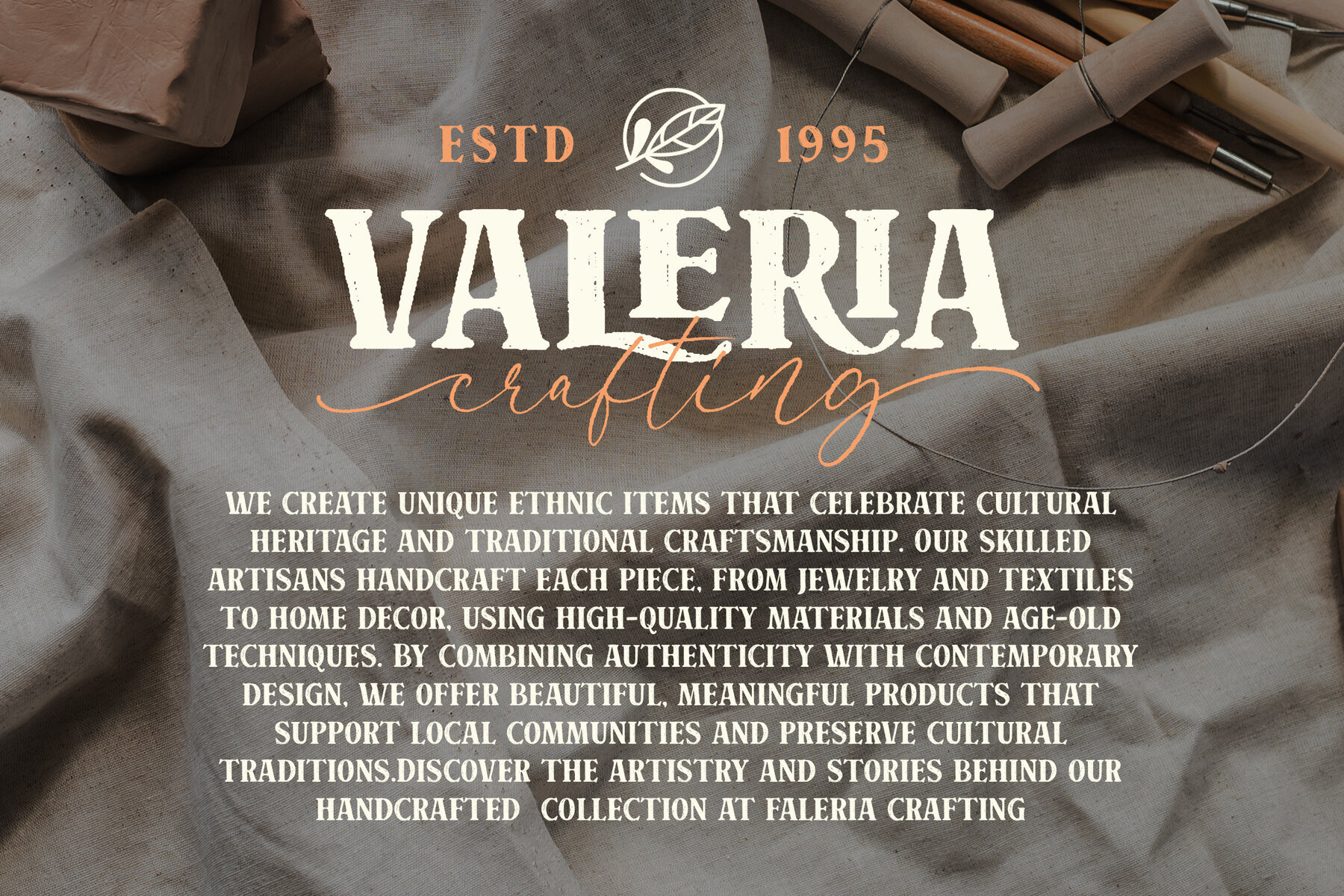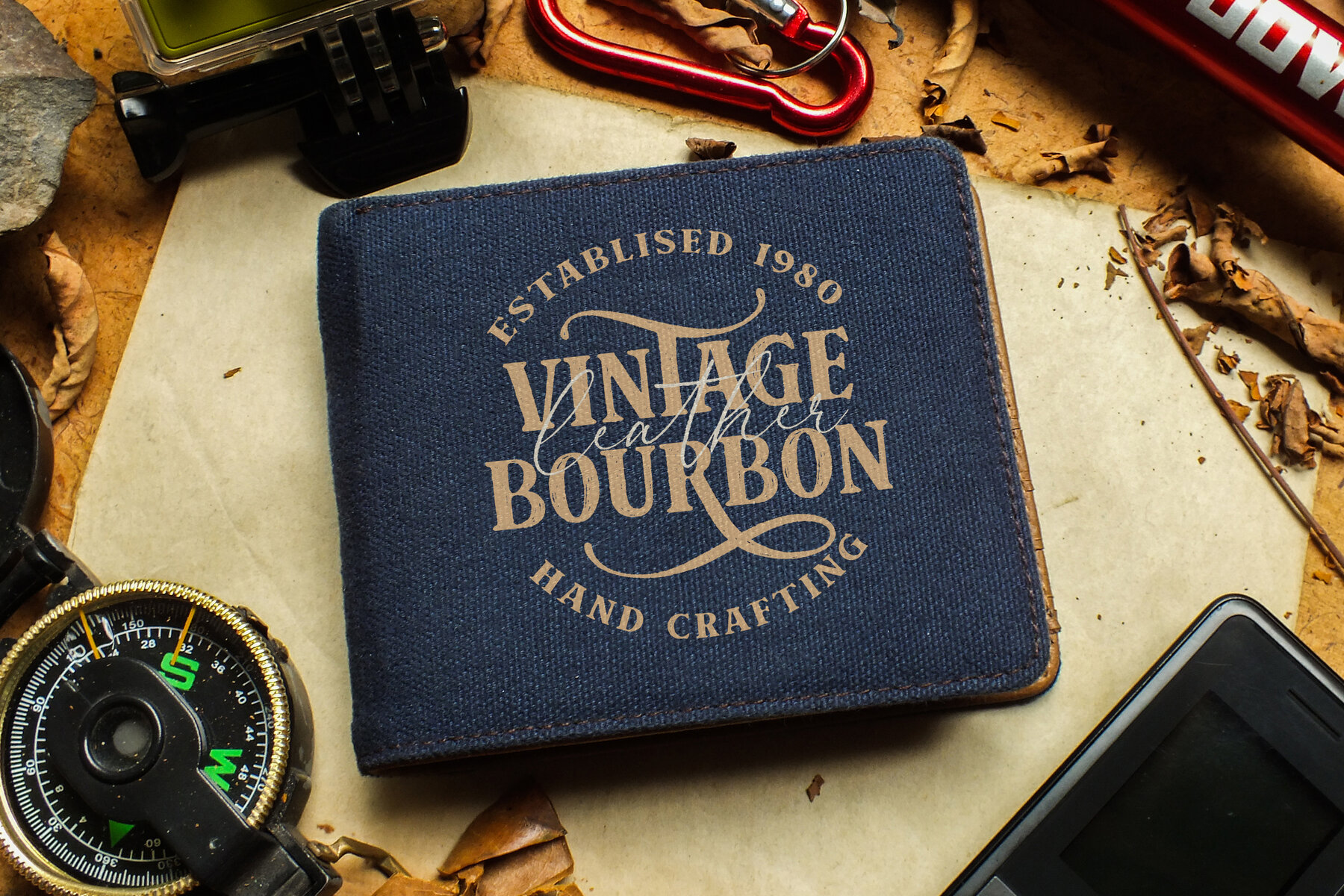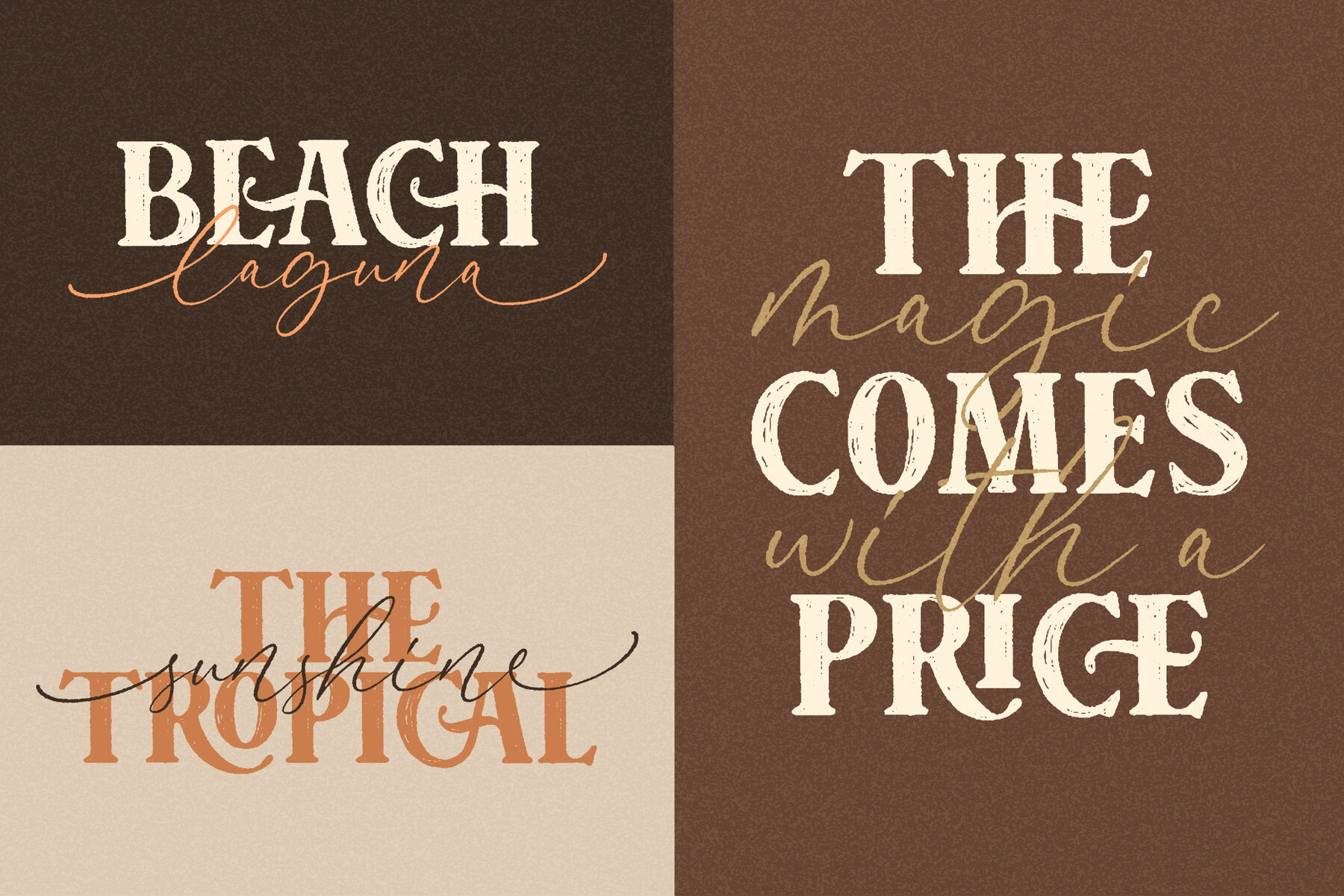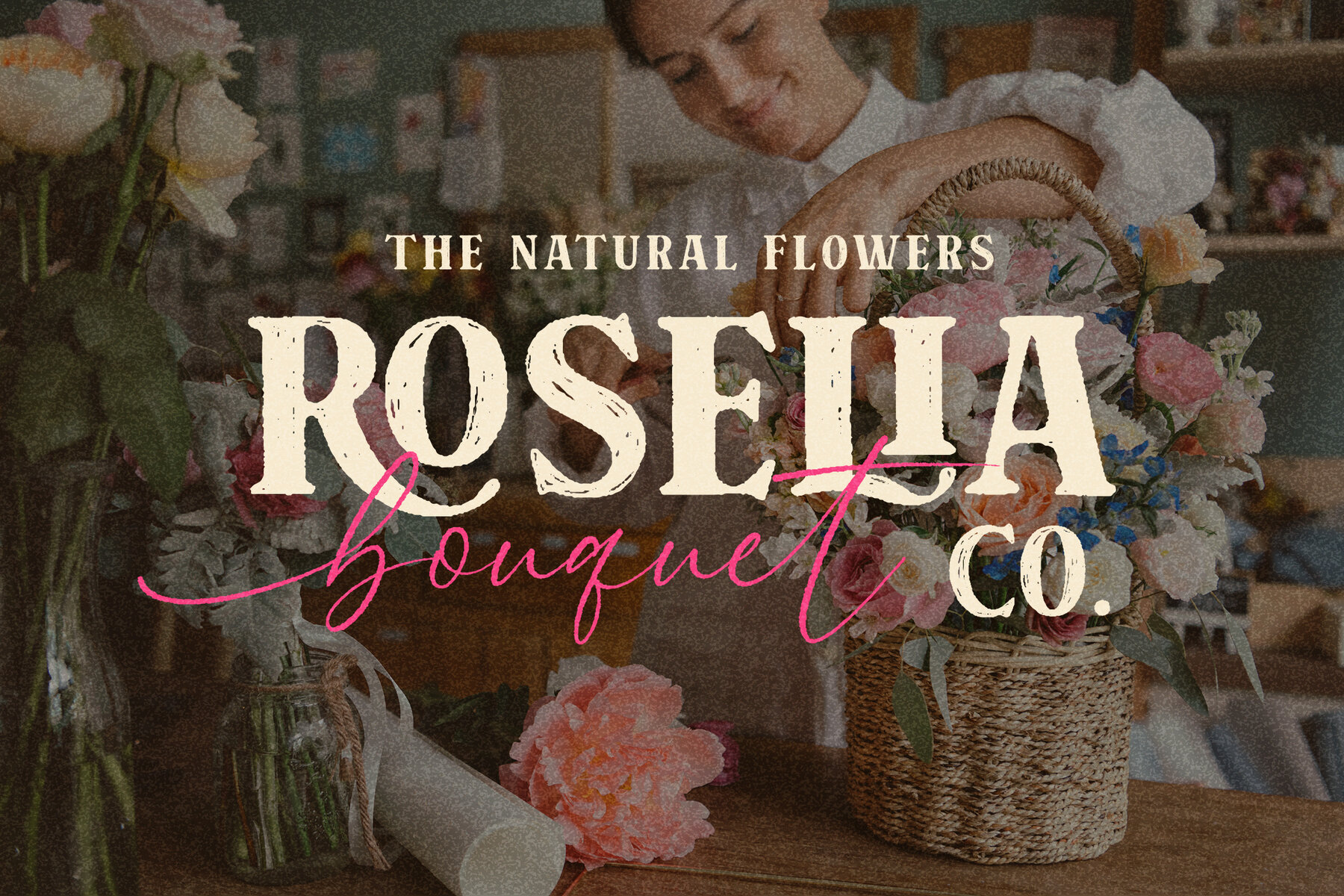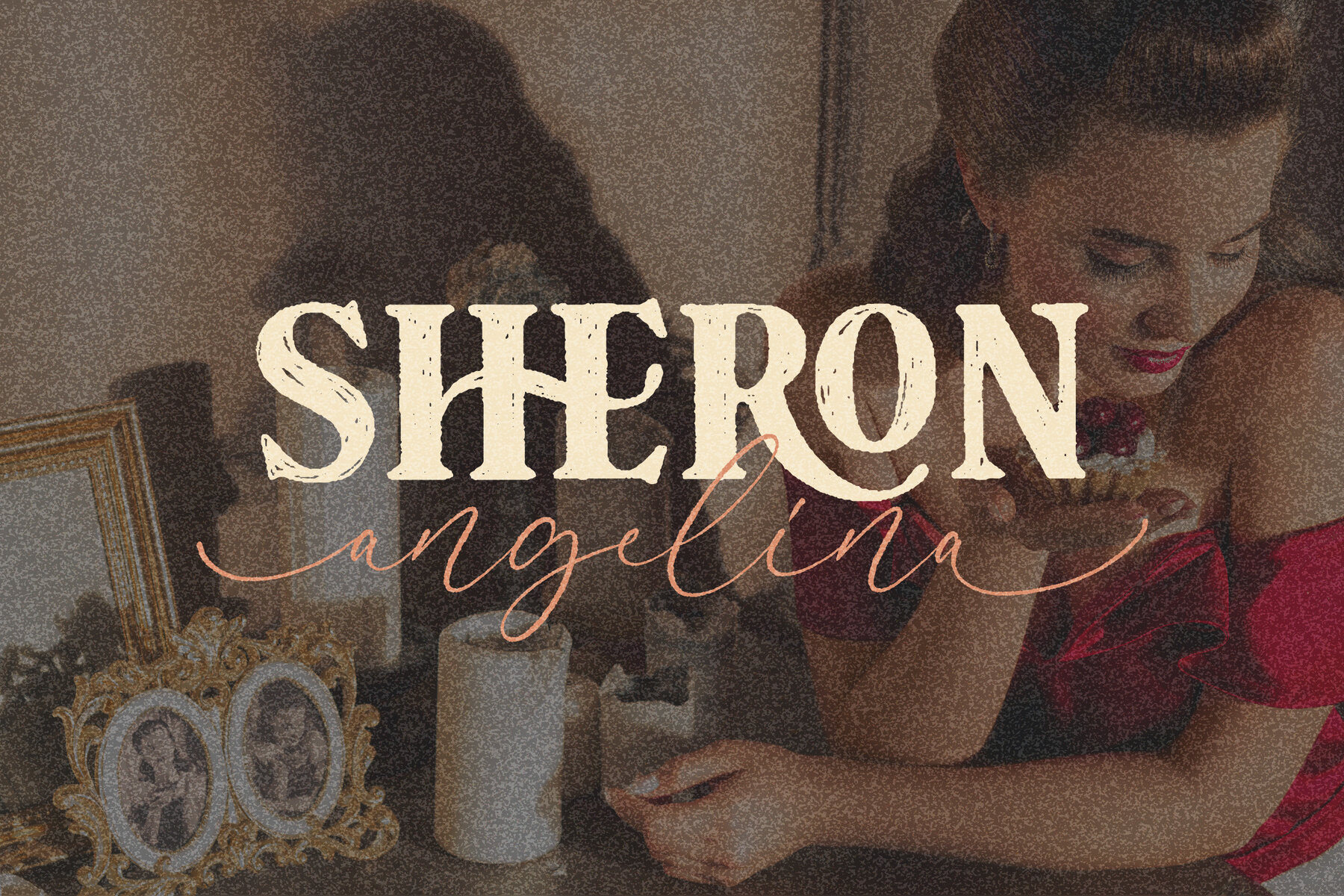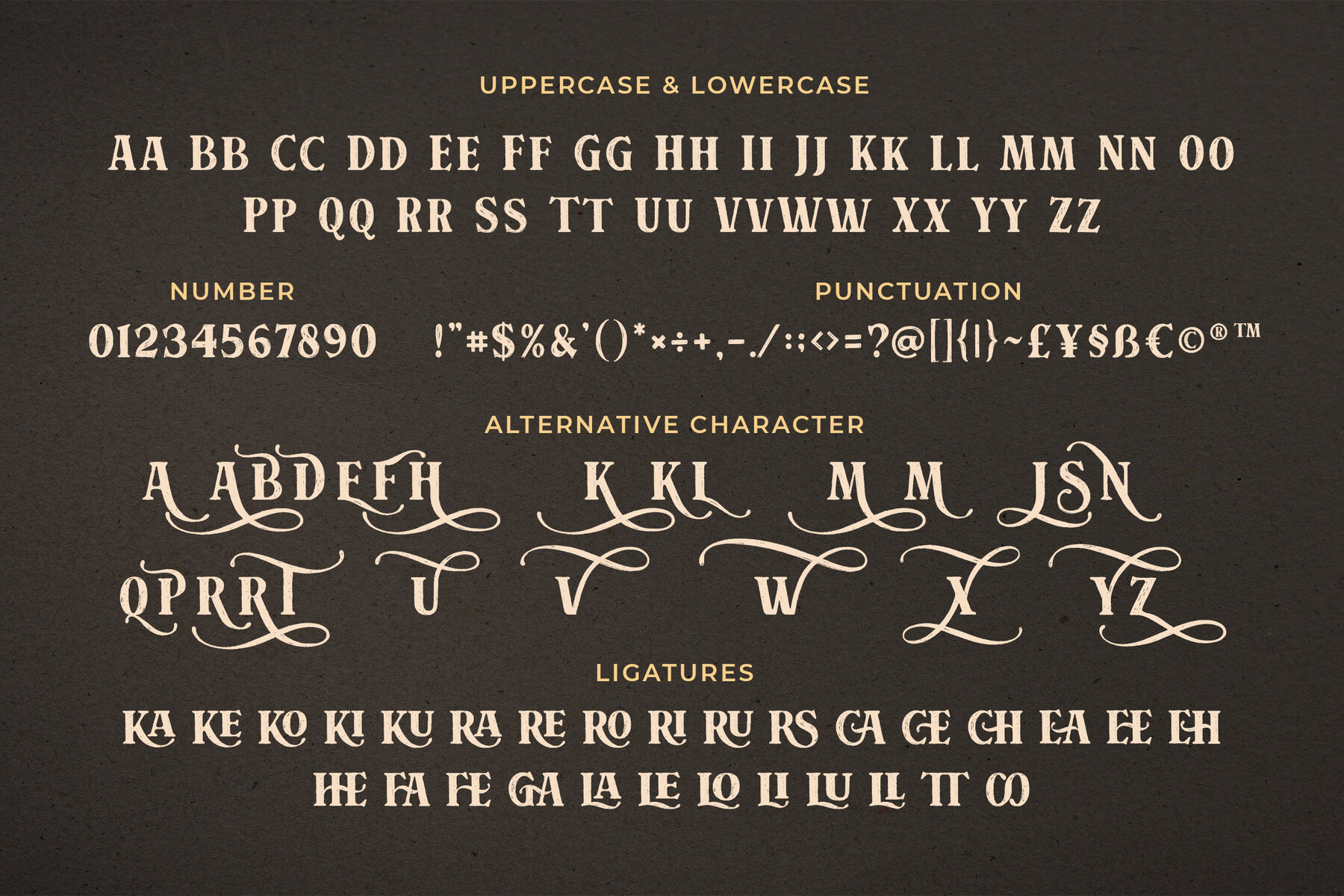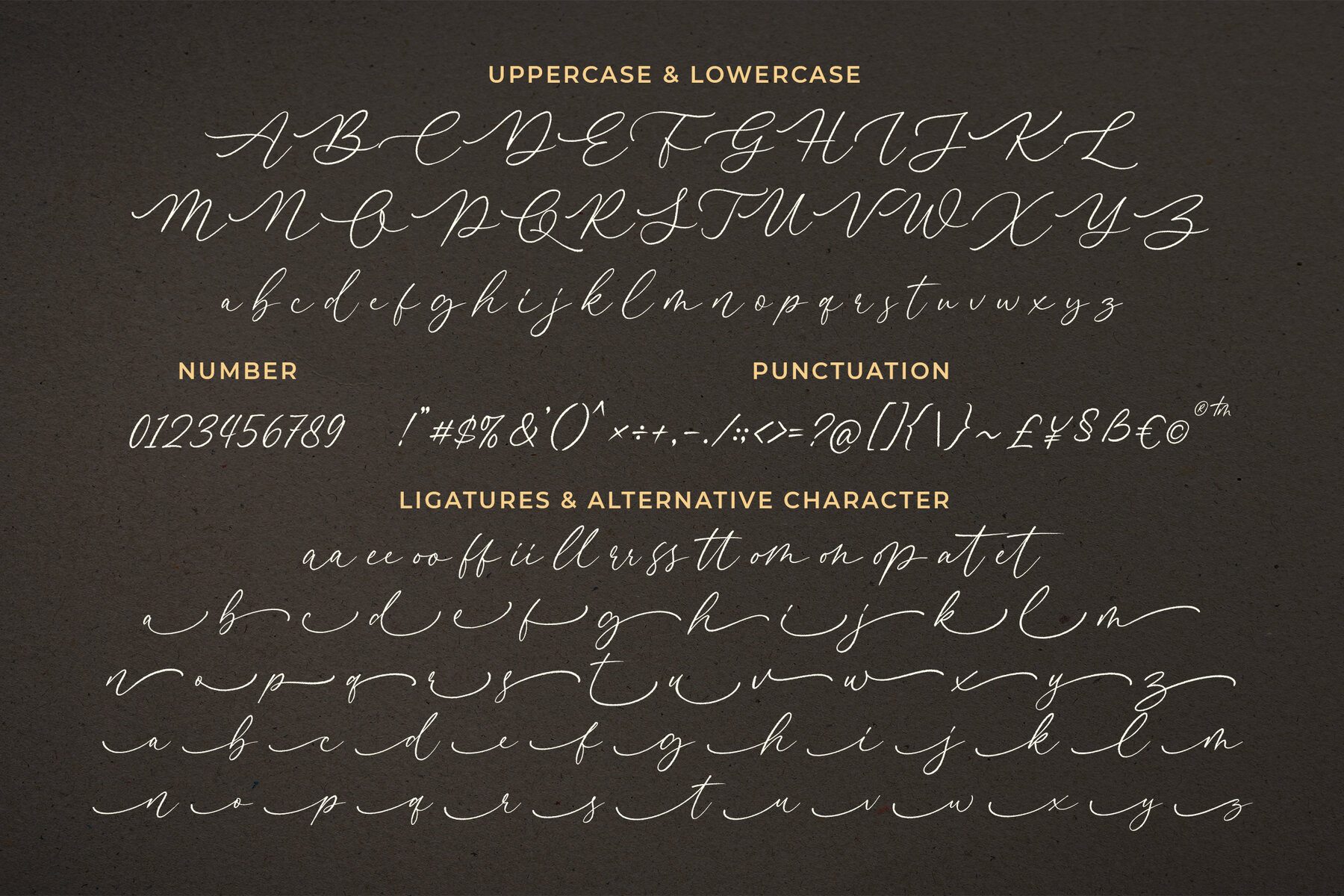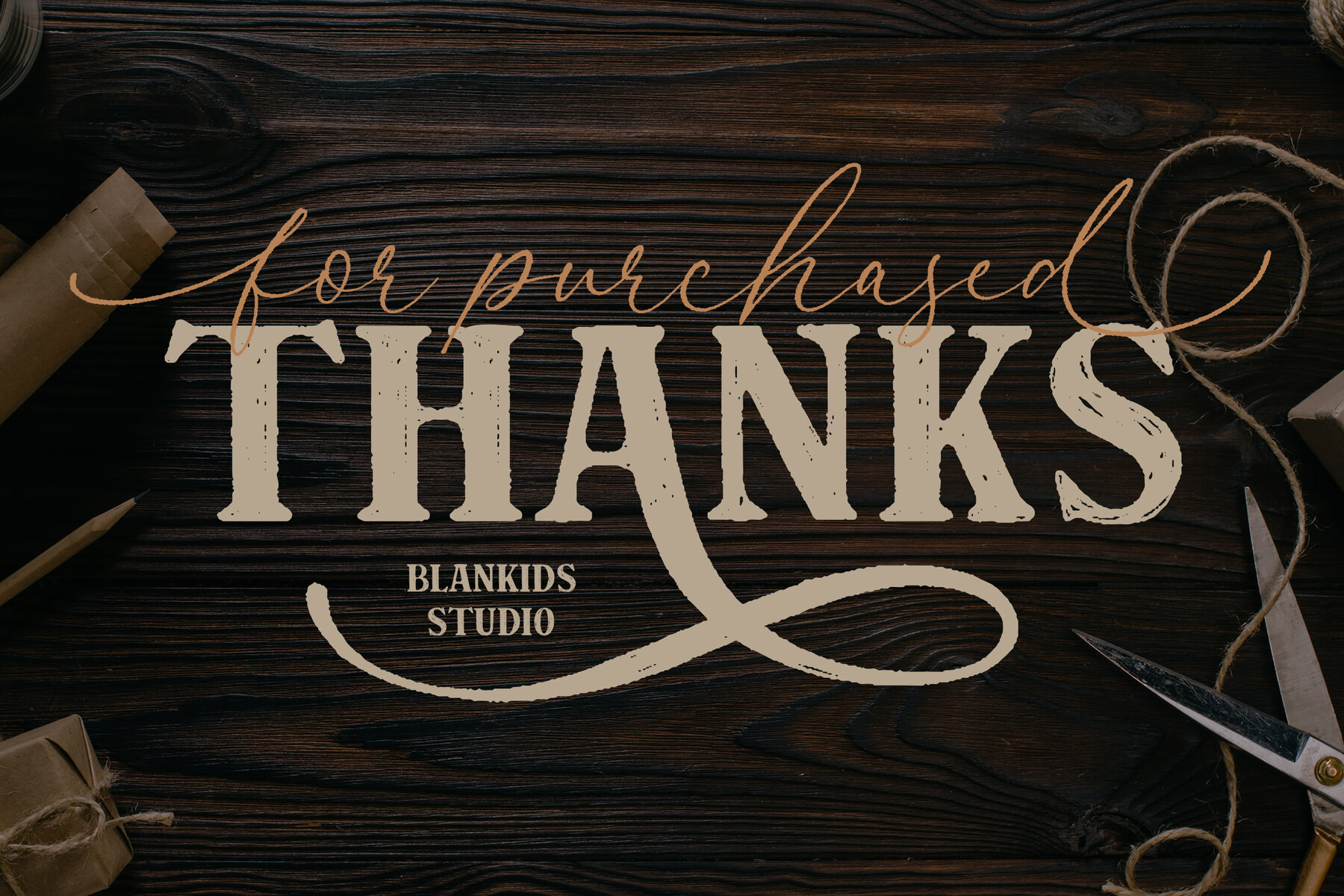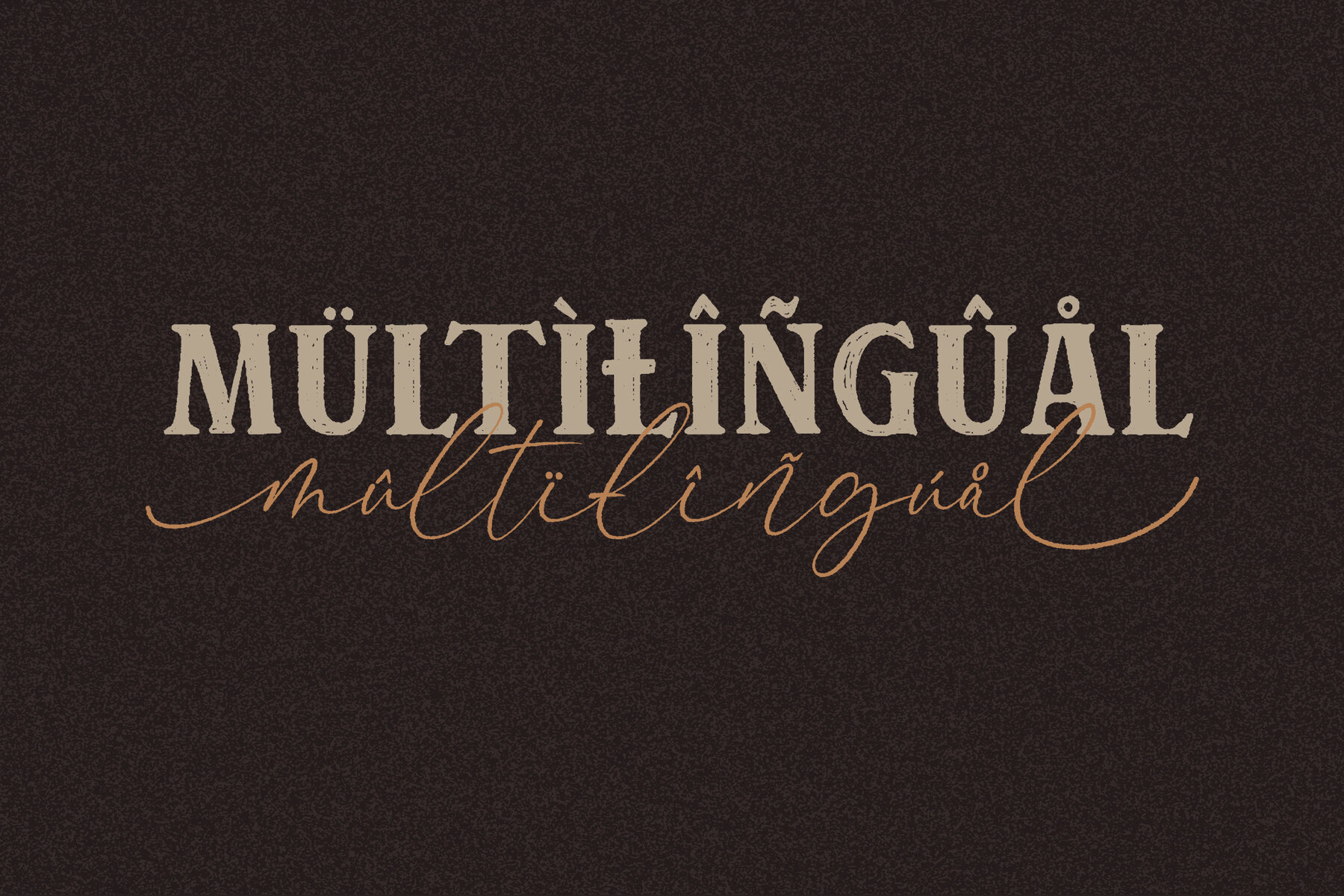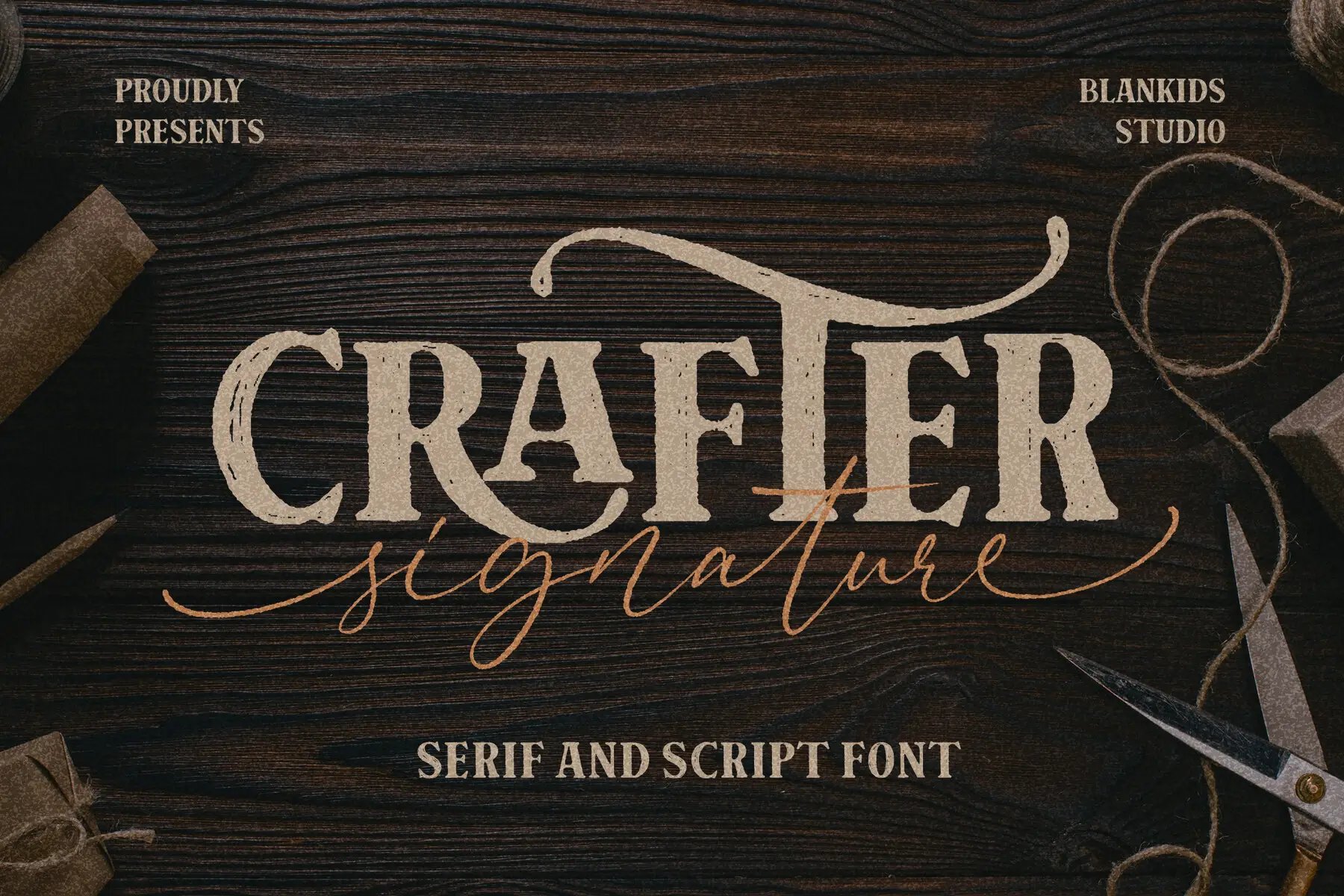
Crafter Signature Font
Crafter Signature Script
Crafter Signature Serif
Discover Crafter Signature, where the timeless elegance of serif meets the expressive flair of script handwriting. This unique font, crafted with precision, offers a natural, rough texture that lends authenticity to any design. Emerging from hand-drawn sketches, Crafter Signature transforms these into a versatile typeface, adding a personal touch to every project. Perfect for logos, packaging, posters, and more, Crafter Signature stands as a refined choice. Its balanced mix of structured serifs and fluid script elements ensures your creations make a sophisticated and creative impression. Elevate your design with this remarkable font that highlights your work's uniqueness.Crafter Signature: A Fusion of Serif and Script